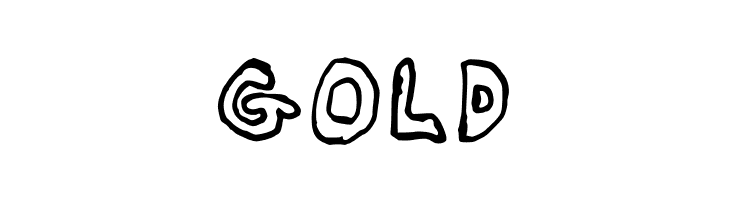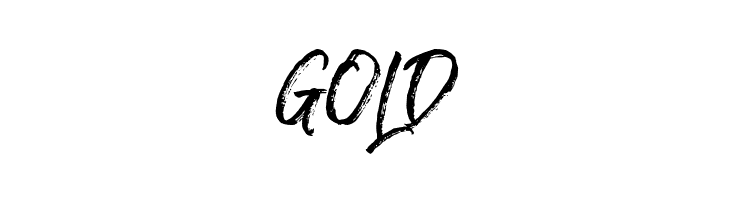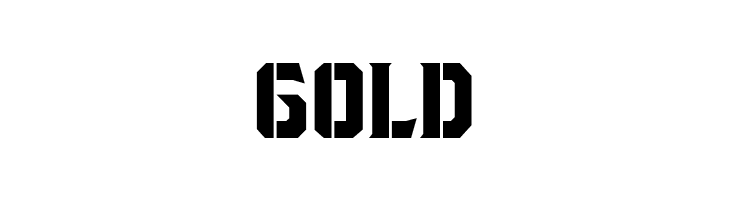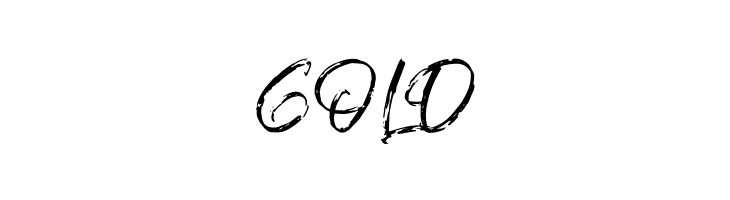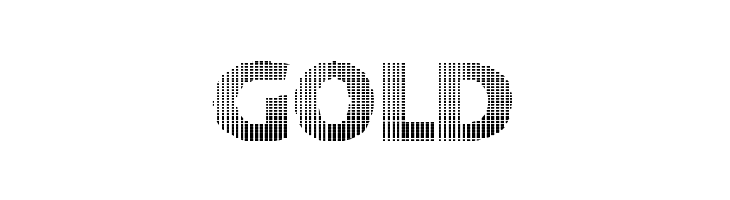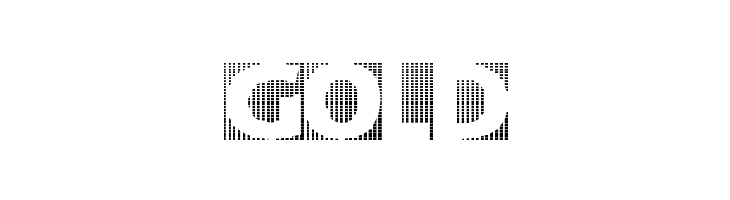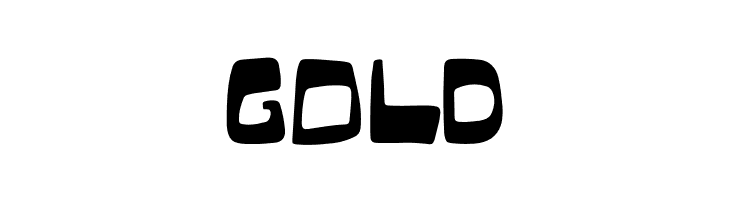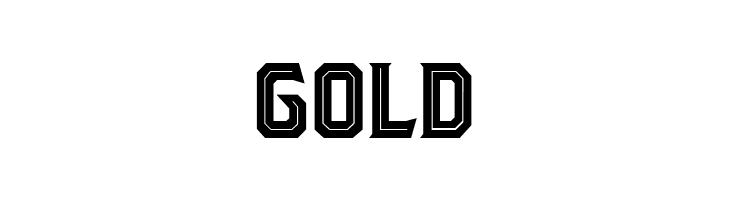
A playful, hand-drawn font with wavy, irregular outlines and a whimsical style.
A bold, geometric inline font with a strong, commanding presence.
A bold, geometric stencil font with a military-industrial aesthetic.
A bold, playful font with a hand-drawn, cartoonish style.
A decorative blackletter font with ornate, angular strokes and historical elegance.
A bold and ornate blackletter font with intricate, medieval-inspired designs.
A dynamic brush-style font with bold, expressive strokes.
A bold, expressive handwritten font with dynamic strokes and a textured appearance.
A grid-patterned font with a modern, digital aesthetic.
A bold, grid-patterned decorative font with a modern, digital aesthetic.